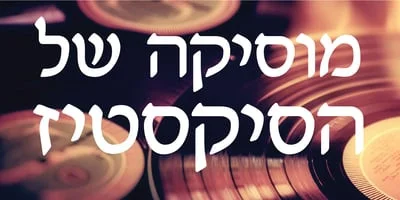
Katava MF Font
Katava MF Font is elegantly designed for sophisticated editorial layouts, premium manuscript projects, scholarly publication materials, cultural heritage documents, literary journal designs, academic research presentations, historical preservation materials, and refined intellectual communications. This distinguished typeface excels in environments requiring scholarly sophistication and manuscript authenticity, making it perfect for academic institutions, cultural organizations, literary publishers, and any organization needing to communicate intellectual depth and manuscript tradition through sophisticated typography.
What makes Katava MF Font so exciting is its exceptional blend of manuscript calligraphy traditions with contemporary scholarly functionality that creates an immediate sense of intellectual authority and academic gravitas. The font features meticulously crafted letterforms inspired by traditional manuscript writing with scholarly proportions and refined details that honor academic heritage while ensuring modern readability for contemporary publications. Its scholarly construction and manuscript character make it incredibly effective for brands wanting to communicate intellectual rigor, academic excellence, and scholarly tradition while appealing to educated audiences who appreciate literary sophistication.
Katava MF Font typically includes multiple weights and styles such as Light, Regular, Medium, and Bold, often accompanied by scholarly Italic variations optimized for academic applications. The font family frequently features additional manuscript elements including academic symbols, scholarly ornaments, and intellectual glyphs that enhance its academic appeal. Each weight maintains the font's distinctive scholarly character while offering different levels of intellectual emphasis, providing designers with comprehensive tools for creating academic brand identities and scholarly communication materials.
Academic professionals will find that Katava MF Font delivers outstanding performance in both traditional scholarly applications and contemporary academic materials requiring intellectual credibility. The font's carefully crafted character set includes scholarship-appropriate letterforms, academic symbols, and intellectual elements essential for university branding, scholarly publishing, and academic communication materials. Its refined design makes it particularly effective for academic journals, university publications, scholarly conferences, and education-oriented marketing campaigns requiring authentic academic presence.
The meticulous attention to scholarly proportions and academic spacing ensures that Katava MF Font maintains excellent readability while delivering maximum intellectual impact. Its manuscript-inspired design language makes it particularly effective for academic institutions, scholarly publishing, cultural preservation, and intellectual communications. The font's distinguished appearance creates strong academic credibility while remaining highly functional for projects requiring clear communication to scholarly communities and educated audiences.
For designers seeking a typeface that embodies scholarly tradition with intellectual sophistication, Katava MF Font represents an exceptional choice that will elevate any project with its distinctive scholarship and academic character.